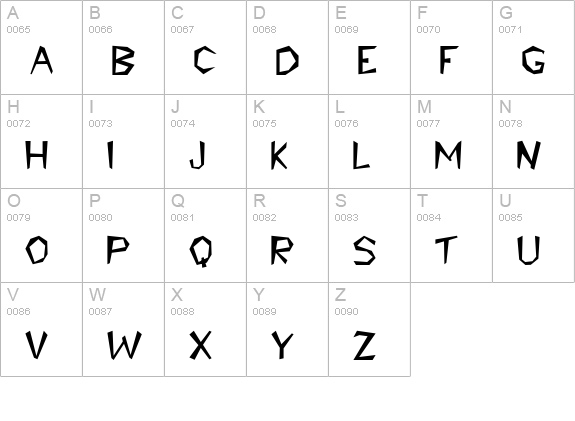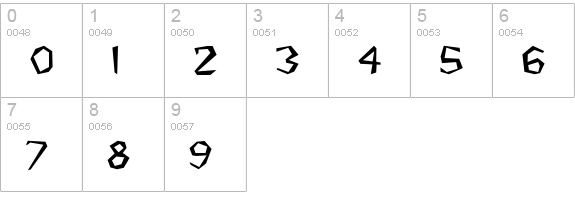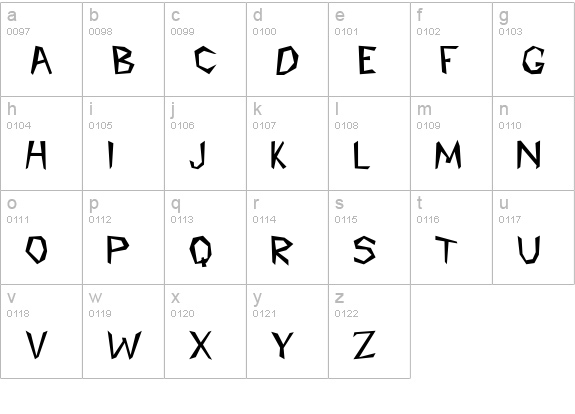
Caveman Regular Font Details
Caveman Regular is the standard, neutral variant in the Caveman typeface family \xE2\x80\x94 well suited to general body text, paragraphs, and standard typographic work.
Caveman Regular font is a bold and rugged typeface that exudes an ancient charm reminiscent of prehistoric times. With its rough edges and primitive design, this font is perfect for adding a touch of raw authenticity to your projects. Whether you're creating a poster for a historical event or designing a logo for a rustic brand, Caveman Regular font will bring a unique and eye-catching element to your work. Best of all, Caveman Regular font is completely free to download at FontsMarket.com. So, unleash your creativity and transport your audience back in time with this distinctive and adventurous typeface.